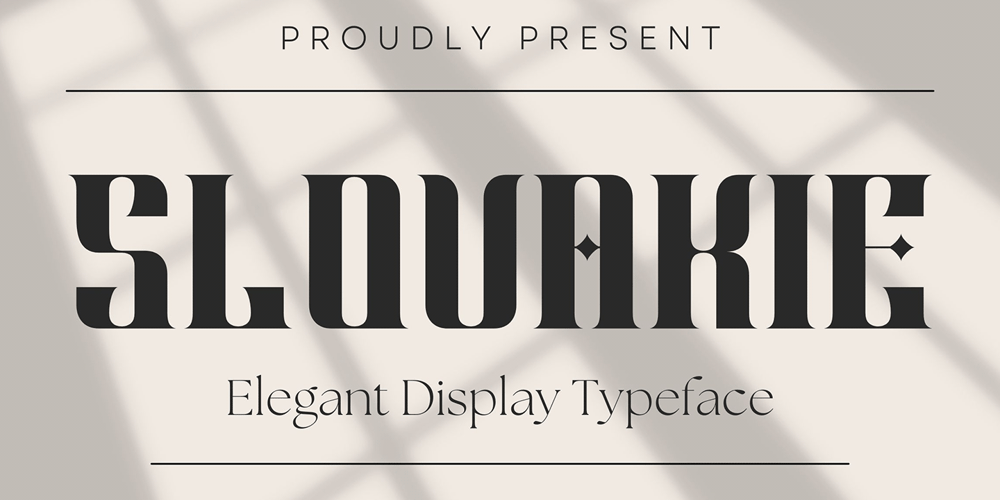
Slovakie Font Family was designed by Rinto Dwi Nugroho and published by Almeera Studio. Slovakie contains 1 styles and family package options. Introducing the new Slovakie Typeface!!! Slovakie is a Elegant and glamour serif typeface. This font is both modern and nostalgic and works great for logos, magazine, social media. Already matched up and ready to be used together for your next design!For those of you who are needing a touch of elegant, stylish, classy, chic and modernity for your designs, this font was created for you!Perfect for editorial projects, Logo design, Clothing Branding, product packaging, magazine headers, or simply as a stylish text overlay to any background image.